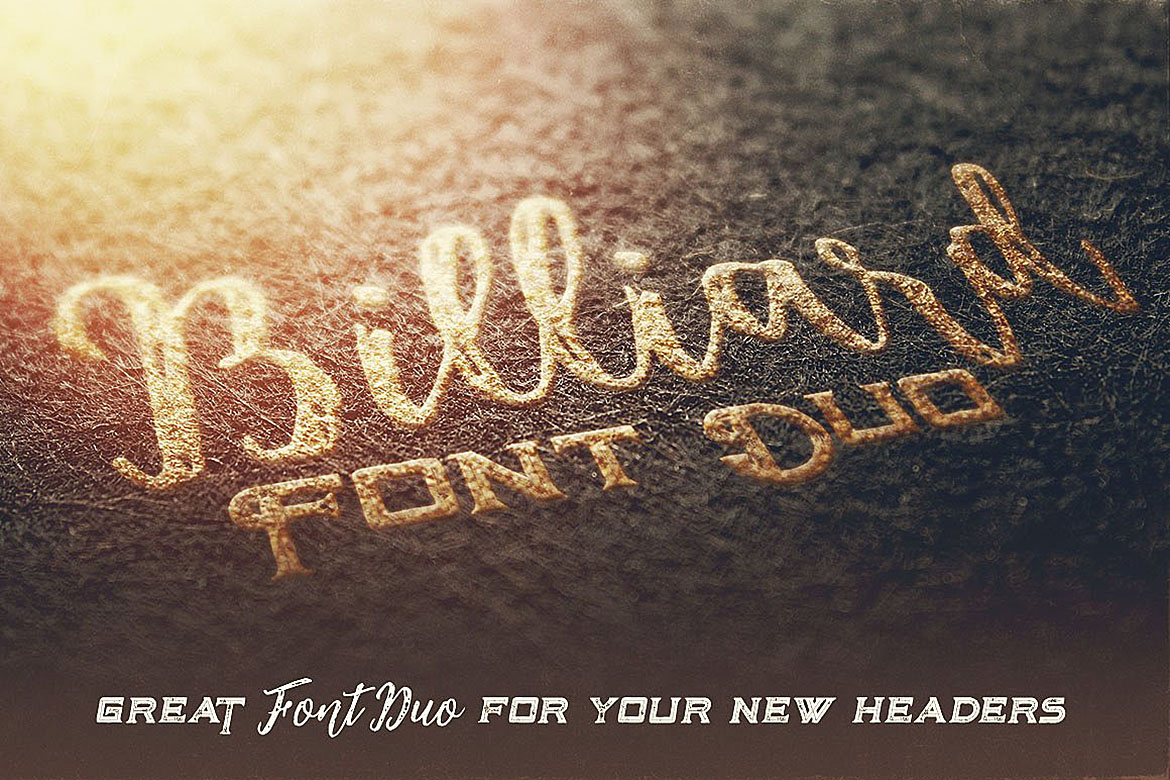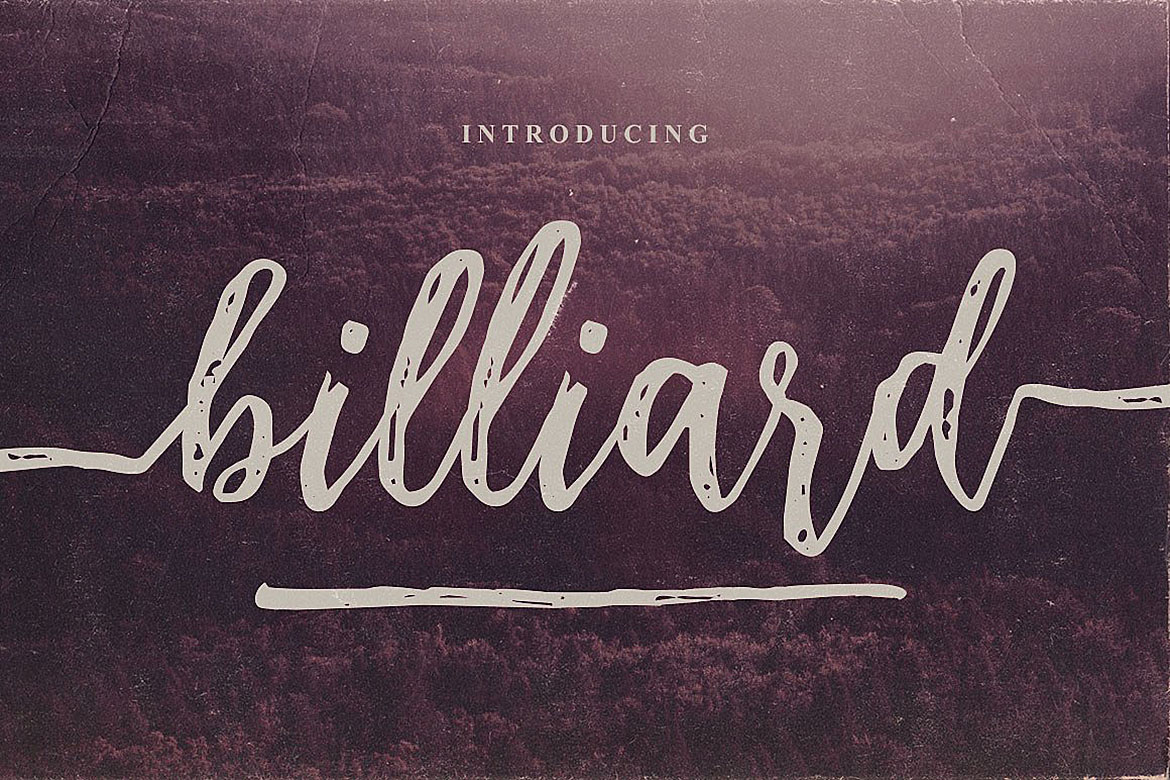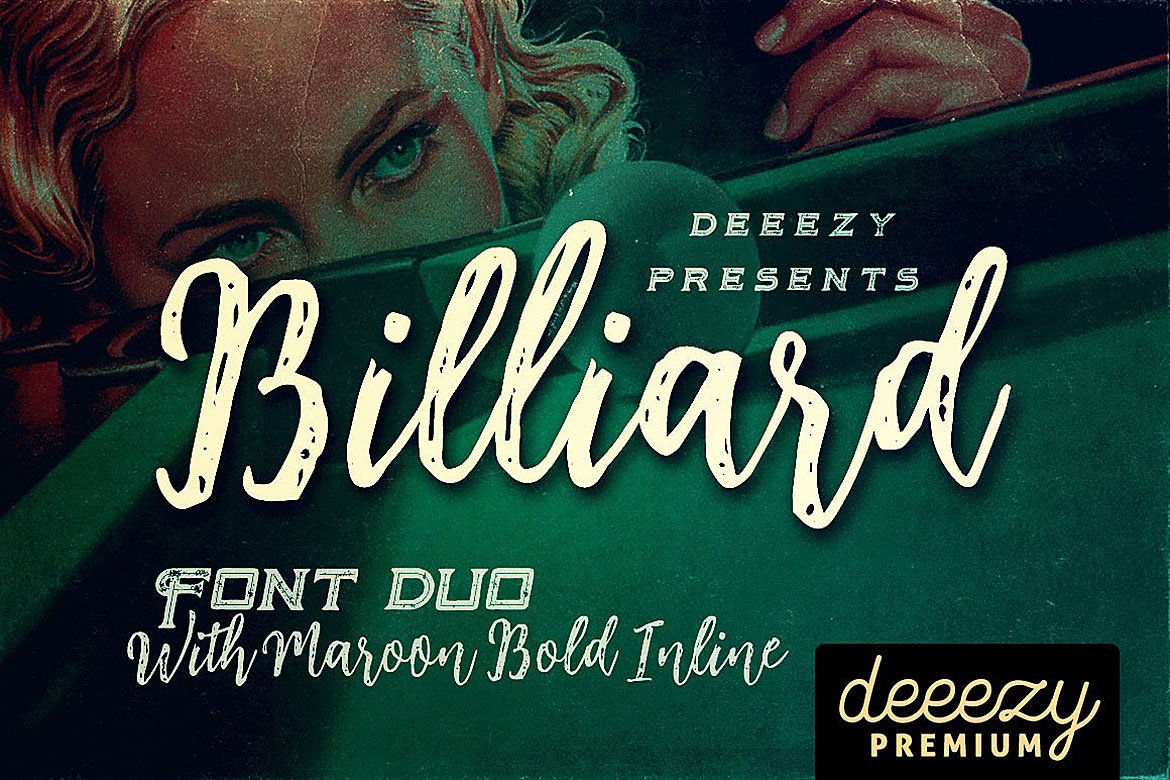
The Perfect Shot: Elevate Your Designs with Billiard Font Duo Font
There’s nothing quite like the thrill of a creative breakthrough – the moment when all the pieces fall into place and your vision comes to life. For designers, these moments are what drive us to keep pushing the boundaries of what’s possible. And sometimes, it’s the smallest details that make all the difference. That’s why we’re excited to introduce the Billiard Font Duo Font, a retro-inspired duo that’s sure to add a touch of vintage charm to your next project.
This dynamic font duo consists of two unique styles: a hand-drawn, brush script font with multi-language support and a bold, inline display font in regular and grunge versions. With its abundance of stylistic alternates and swashes, the Billiard Font Duo Font is a versatile tool that’s perfect for adding a personal touch to your designs. Whether you’re working on a branding project or creating a vintage-inspired poster, this font duo is sure to help you hit the mark.
Billiard Font Duo Font Key Features
- Unique Characteristics: The Billiard Font Duo Font features a distinctive, vintage-inspired design with intricate details and ornate flourishes, adding a touch of elegance to any text.
- Language Support: The font supports a wide range of languages, including Latin, Cyrillic, and Greek alphabets, making it a versatile choice for international projects.
- Kerning and Ligatures: The font includes advanced kerning and ligature features, ensuring that text sets are beautifully spaced and visually appealing.
- Scalability: The Billiard Font Duo Font is highly scalable, allowing it to be used in a variety of contexts, from small text to large headlines, without losing its clarity and readability.
Billiard Font Duo Font Review
As a designer, I’ve had the chance to work with Billiard Font Duo, and I’m here to share my honest review.
- Unique and quirky design: The font’s vintage-inspired look adds a touch of personality to any project.
- Customizability: The font duo comes in two weights, allowing for some flexibility in design applications.
- Good legibility: While not perfect, the font is readable in most contexts, making it suitable for body text and headings.
- Limited character set: The font lacks some special characters, which might be a problem for certain projects.
- Not ideal for small text: The font’s design can make small text difficult to read, especially at very small sizes.
- Not a good choice for formal projects: The font’s playful vibe might not be suitable for professional or formal design projects.
Billiard Font Duo is a fun, quirky font that’s perfect for creative projects or designs that require a vintage touch. However, it’s not the best choice for formal projects or those requiring a high level of legibility. With some limitations in mind, this font can add a unique personality to your designs.
For a unique look, pair Billiard Font Duo with bold, contrasting fonts.
For a professional look, use Billiard Font Duo with a simple, high-contrast background.
For a modern look, pair Billiard Font Duo with a clean, minimalist design.
Billiard Font Duo is perfect for:
1. Retro-themed designs.
2. Sports branding.
3. Vintage-inspired graphics.